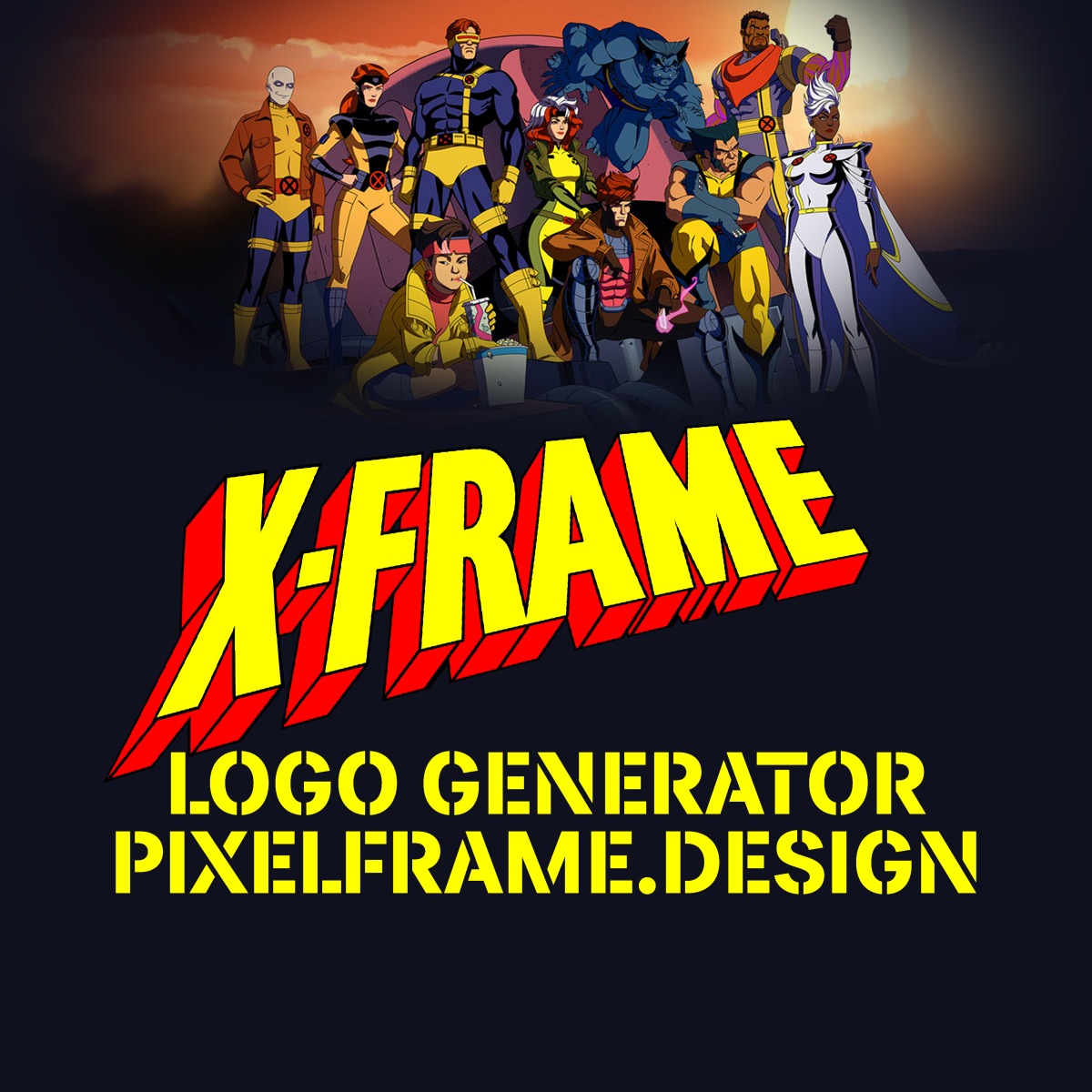
Create Your Own Version of the Classic X-MEN Comic Logo with the X-MEN ’97 Logo & Font Generator…Bub
Although the subtitle line features the stencil effect of the modern X-MEN ’97 cartoon series iteration, the original wordmark is retained in all its original blocky comic glory. Type any word or phrase (shorter words work best to capture the look of the original, but as always there’s no limit) to create and download your own images with faithfully recreated styling to match the original X-Men logo.
The X-Men wordmark is built from a small set of pieces stacked in a specific order: a heavy red block of depth trailing behind each letter, a thick black border holding the whole shape together, a flat yellow face on top, a handful of thin black lines marking where the "3D" surface changes plane, and the whole thing tipped back into a perspective wedge that makes the word look like it's receding away from the reader. None of those pieces is complicated by itself, but the order they get layered in — and the fact that the perspective gets applied to everything at once, rather than to each letter individually — is what makes it read instantly as the X-Men logo rather than just red-and-yellow block text. This generator rebuilds that construction in canvas, piece by piece, so any word can be dropped into the same wedge. Below is a look at how each layer comes together, followed by a look at where the design actually came from.
Building the wordmark, layer by layer
Every output from this generator starts as flat typed text and ends up as a finished wedge once five layers are stacked and the whole thing gets warped into perspective. Here's what each step contributes on its own, building up to the full logo.
Layer 1 — The extrusion base
Before any letter shape is visible, the generator draws dozens of overlapping copies of each character, each one nudged slightly down and to the left of the last. Stacked together, those copies read as a solid red slab trailing off each letter — the "depth" side of the 3D lettering, built the same way a shadow is built rather than drawn as a single flat shape.
Layer 2 — The black outline
A thick black stroke is drawn directly on top of each letter's true outline, sharpening the edge that the extrusion left soft and giving every character the heavy border the logo is known for. This is also the layer that defines exactly where the flat face will sit in the next step.
Layer 3 — The yellow face
A solid yellow fill goes in last for each letter, sitting on top of both the extrusion and the outline. Because it's drawn after everything else, it automatically covers the part of the red depth that sits directly behind each letter's own body, leaving only the trailing edge of red visible — exactly the relationship between the flat top and the beveled side on the source logo.
Layer 4 — The facet seam lines
Real beveled lettering isn't one continuous surface — wherever two edges of a letter meet at a corner, the angle of the bevel changes, and that change reads as a thin seam line. This generator places those seams by hand at the corners where they're actually visible on the source logo (the crossing point of the X, the notch under the M) and draws each one along the same diagonal the extrusion itself trails on, so the line is guaranteed to sit inside the visible red rather than floating off the edge of it.
Layer 5 — Perspective, tilt, and squeeze
Up to this point the wordmark has been sitting flat, facing the viewer head-on. This step is what actually makes it look three-dimensional: the whole composited image — extrusion, outline, face, and seams together — gets tilted, squeezed narrower on one side than the other, and mapped onto a warped quad so the far end of the word appears to recede into the distance. Because this happens after everything else is drawn, all four earlier layers get bent into the same perspective at once, instead of each letter being drawn at its own separate angle.
Layer 6 — Background and the subtitle line
The finished wedge sits on a dark background by default, with two photo backgrounds and a classic blue option also available. A second, smaller line of text — set in its own dedicated font, in all caps — sits centered underneath. Rather than living at a fixed height, its position is measured directly from where the wordmark's own artwork actually ends after the perspective warp above, so it tucks in close underneath the word no matter how big or small that word ends up being.
Where the wedge shape of the original X-MEN logo came from
The X-Men first appeared in September 1963, created by Stan Lee and Jack Kirby as a team of teenage mutants led by the telepath Charles Xavier. The book sold poorly through the 1960s and lapsed into reprints by 1970, and neither Lee nor Kirby stayed on it for long — it took a 1975 relaunch and a long run under writer Chris Claremont to turn it into the property it's known as today. The logo has its own separate, much stranger history, and the version used on X-Men '97 is actually the fifth distinct redraw of the same basic design.
The lettering style traces back to 1968, when artist Jim Steranko — mostly known for his work on Nick Fury, Agent of S.H.I.E.L.D. — filled in on X-Men #50 and #51 and, without being asked to, redesigned the logo along with the story. Steranko later called the two issues themselves "deplorable" work he rushed through as a favor, but the wedge-shaped, telescoping lettering stuck around long after the stories were forgotten, even though his original had real perspective problems: the vertical lines of the letters don't converge toward any single vanishing point, with the X, the E, and the N all seemingly following different angles. An unknown letterer redrew it starting with issue #60 to fix some of that and free up space for cover copy, and when a second ongoing X-Men title launched in 1991, Marvel simply stretched that 1969 version and traced over it rather than starting fresh — which is the version that ended up on the title card of the original 1992 cartoon, chopped slightly at the bottom to fit.